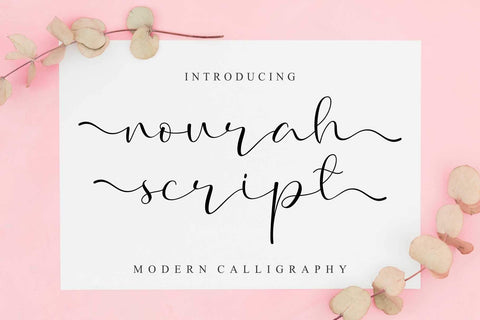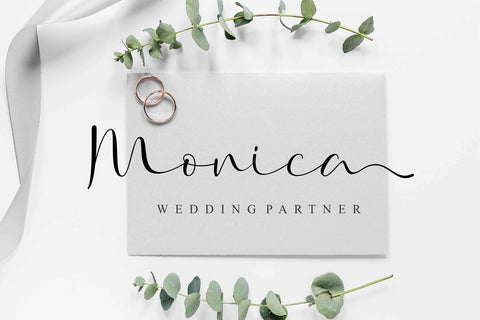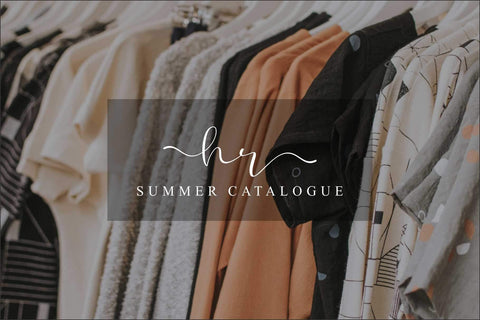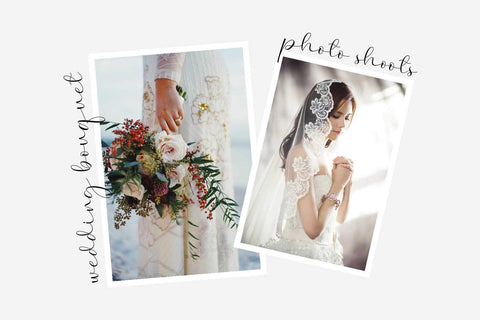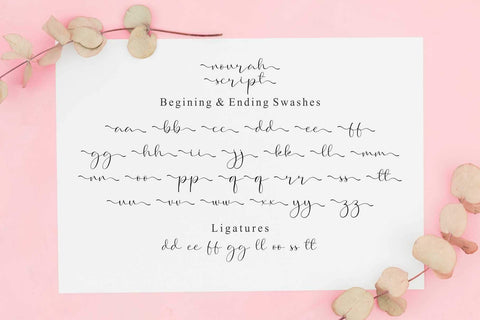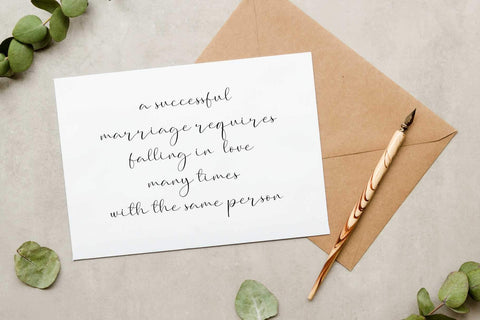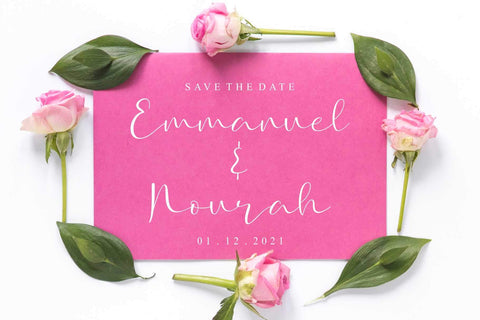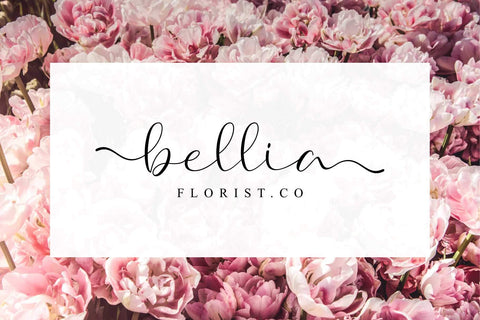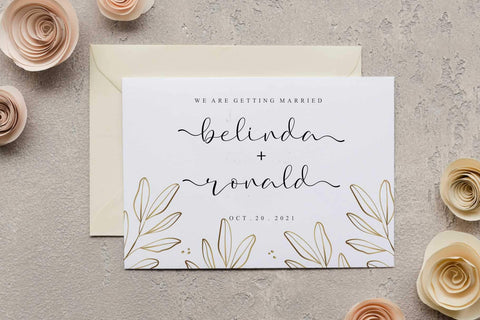
Nourah Script | Cute Handwritten Font
Nourah Script is a beautiful handwritten script font, which has the perfect and unique shape in each character and very perfect for wedding designs, logos, branding, display, stationery, quotes, and others.